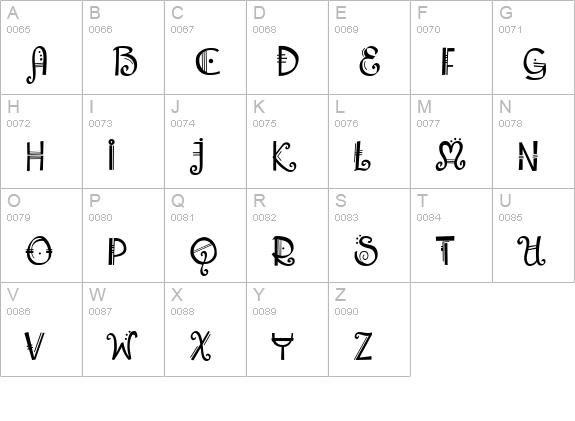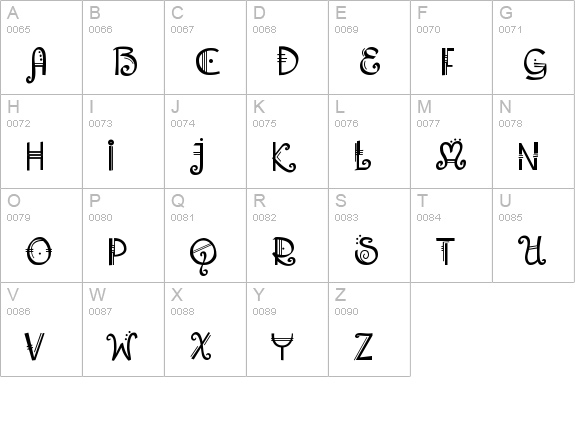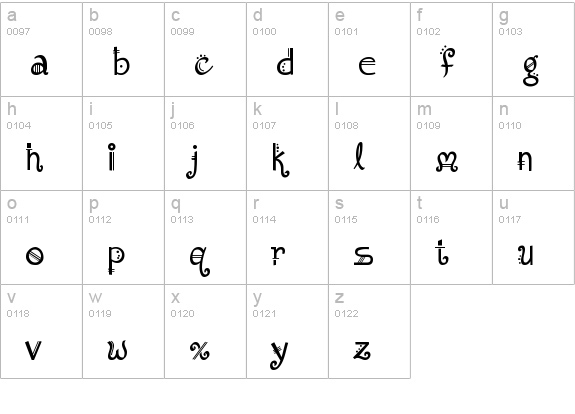
Amadeus Font Details
Amadeus font is a stunning and elegant typeface that exudes sophistication and charm. With its delicate curves and timeless appeal, this font is perfect for adding a touch of class to any project. Whether you are designing a wedding invitation, creating a logo, or crafting a beautiful piece of typography art, Amadeus font will elevate your work to new heights. What's even better is that Amadeus font is available for free download at FontsMarket.com. This means that you can easily access this exquisite font without any cost, making it a valuable addition to your font collection. Don't miss out on the opportunity to enhance your designs with the beauty of Amadeus font - download it for free today!